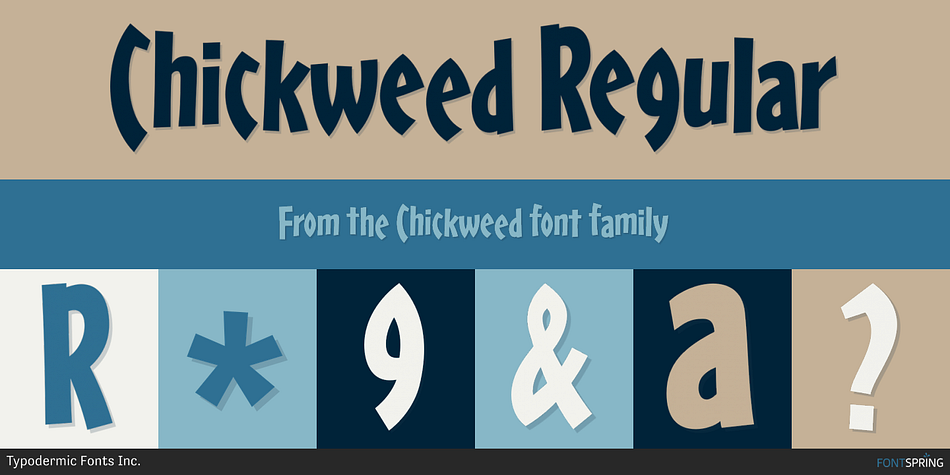
Chickweed Regular
Designed by Ray Larabie, Chickweed is a kids font published by Typodermic Fonts Inc.
Chickweed: The Perfect Typeface for Effortlessly Captivating Headlines
If you’re looking to make a bold statement with your typography, Chickweed is the font for you. This dynamic typeface effortlessly commands attention with its engaging, informal style that is perfect for headlines and subheadings that need to pack a punch. What’s more, Chickweed’s compact design allows it to take up less space while still making a big impact.
Chickweed’s OpenType-savvy features automatically jumble up the variations, giving your design a more natural and exuberant look. This means that you can let your creativity flow, without being bogged down by technicalities.
At the core of Chickweed’s design is a style that is stylish, playful, and contemporary. Its unique curves and swoops exude a sense of energy and excitement that is sure to captivate your audience. Whether you’re designing a poster, a logo, or a website, Chickweed is the perfect choice for creating designs that stand out.